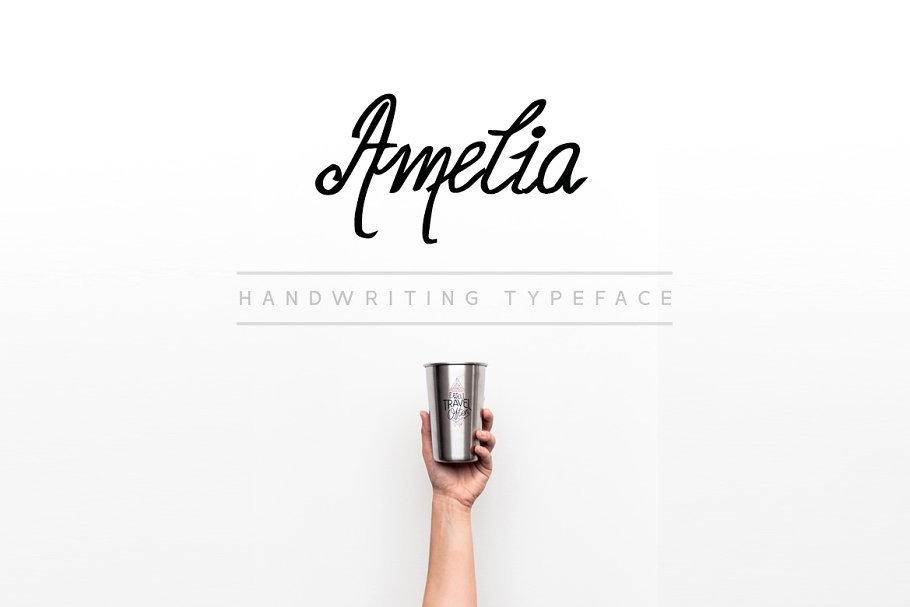
Amelia Font
Amelia Font is perfect for romantic wedding invitations, elegant feminine branding, luxury beauty product packaging, sophisticated lifestyle blogs, boutique fashion labels, and graceful social stationery. Its charming character makes it ideal for bridal boutiques, vintage-inspired cafes, artisanal jewelry brands, romantic event planning, premium skincare lines, and any project requiring timeless femininity with delicate sophistication and heartfelt personal expression.
This font is exciting because it embodies the grace and elegance of classic feminine typography while offering contemporary functionality for modern romantic communications. The beautifully crafted letterforms evoke feelings of tenderness, love, and refined beauty, creating instant emotional connections that resonate with audiences seeking authentic romance, personal intimacy, and the timeless appeal of handwritten elegance in their design experiences.
The Amelia Font family typically includes Regular, Bold, and script variations with romantic swashes, delicate flourishes, and elegant ligatures that enhance its feminine personality. This comprehensive collection enables designers to create cohesive brand systems that maintain romantic authenticity while providing creative flexibility for various applications requiring personal touch, emotional resonance, and sophisticated feminine appeal.
Whether you're developing identity systems for wedding service providers, creating packaging for luxury beauty brands, or designing materials for romantic getaway destinations, Amelia Font Free Download delivers the timeless elegance and feminine charm that connects with audiences seeking beauty and romance. Its graceful presence ensures memorable brand recognition across digital platforms and print materials, making it perfect for websites, mobile applications, and promotional campaigns that celebrate love, beauty, and the enduring power of feminine elegance with contemporary sophistication and heartfelt authenticity.